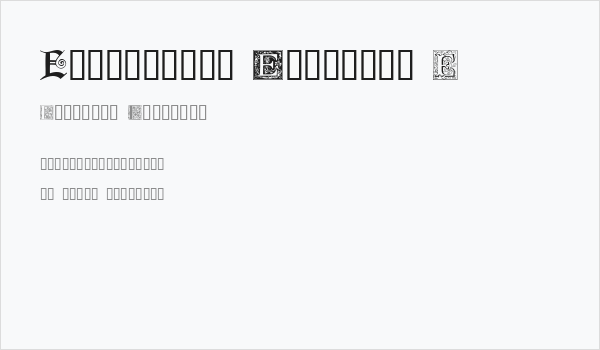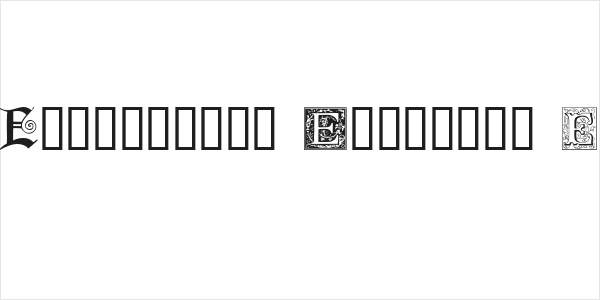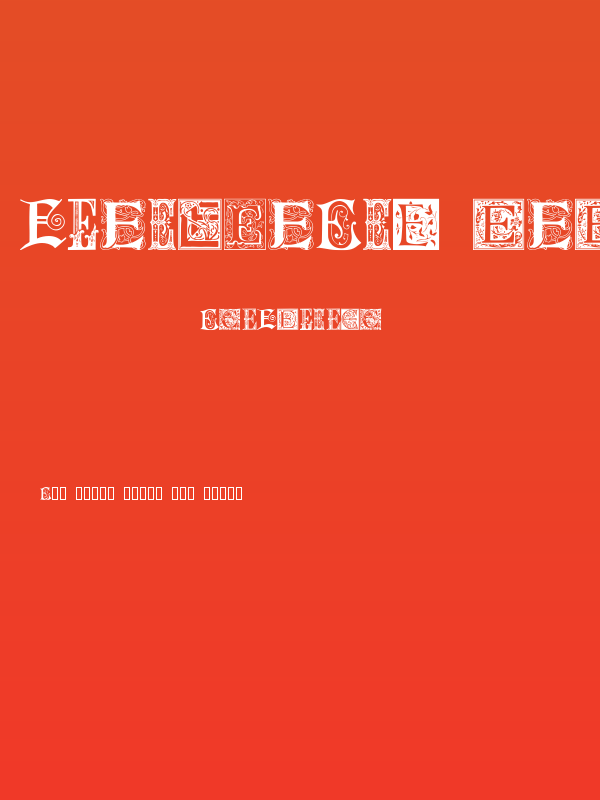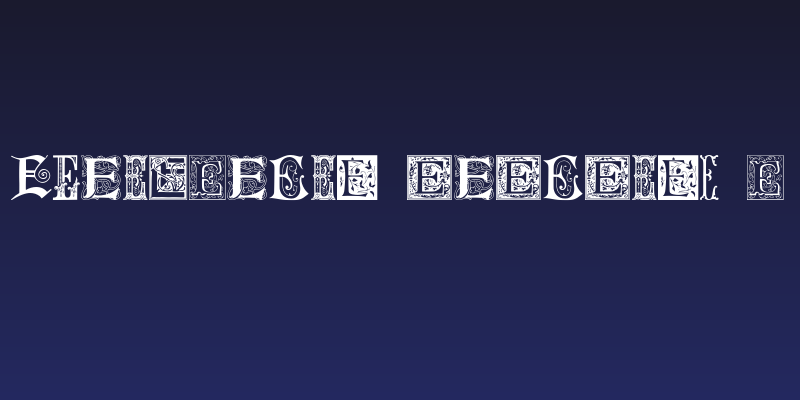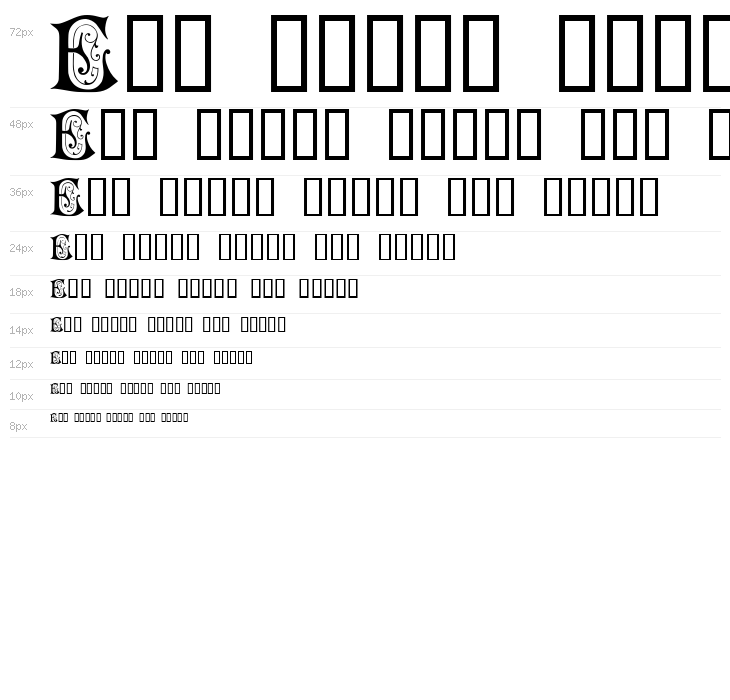
Ornamental Initials E Font
Ornamental Initials E Description
This font is a highly decorative and ornate style, featuring intricate designs within each letter. Each character is enclosed in a square, with elaborate patterns that include floral motifs, geometric shapes, and swirling lines. The font exudes a vintage and classical feel, reminiscent of illuminated manuscripts or historical engravings. The level of detail in each letter makes it more suitable for decorative purposes rather than body text. The overall appearance is bold and eye-catching, making it ideal for creating a strong visual impact.
| Overall Style | Vintage, Decorative |
| Use Case | Logos, Headlines, Decorative elements |
| Proposed Projects | Ideal for use in invitations, greeting cards, book covers, or any project requiring a historical or classical aesthetic. |